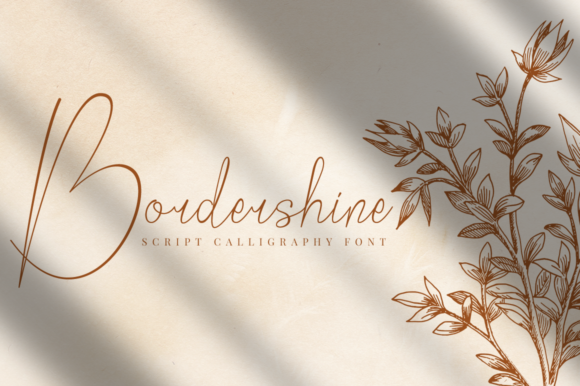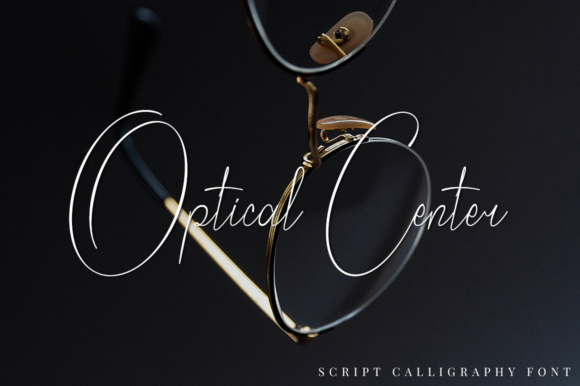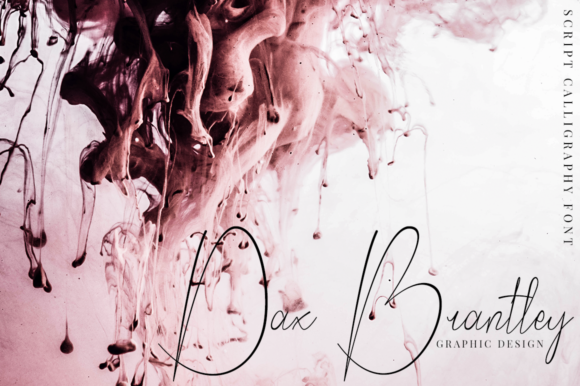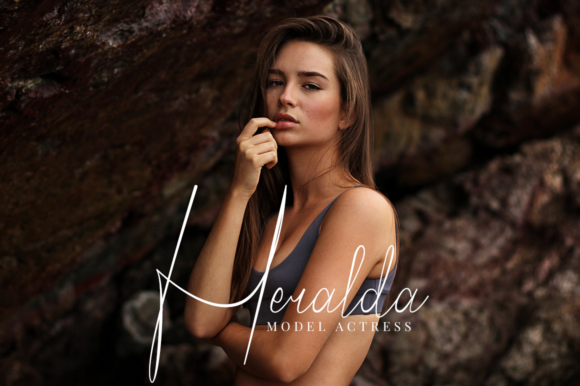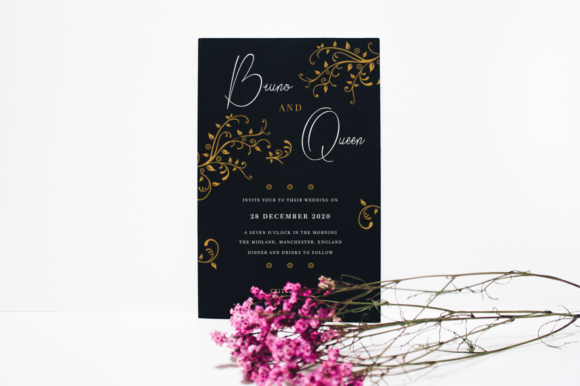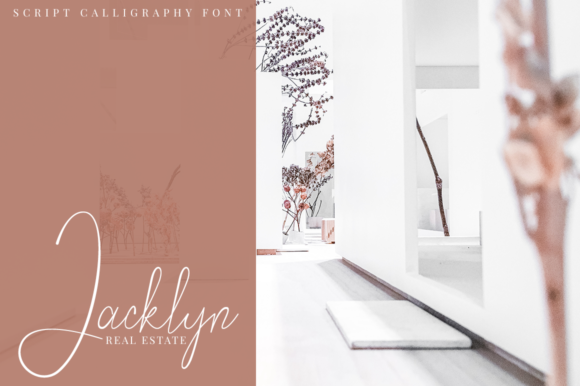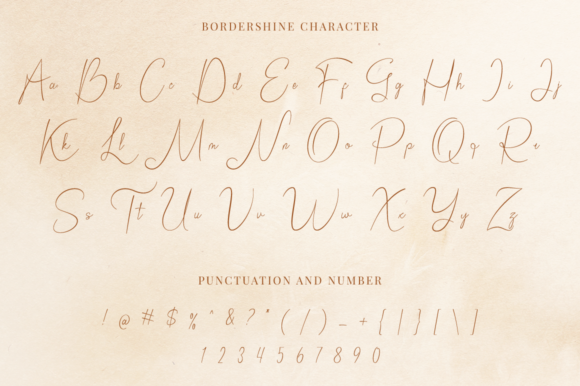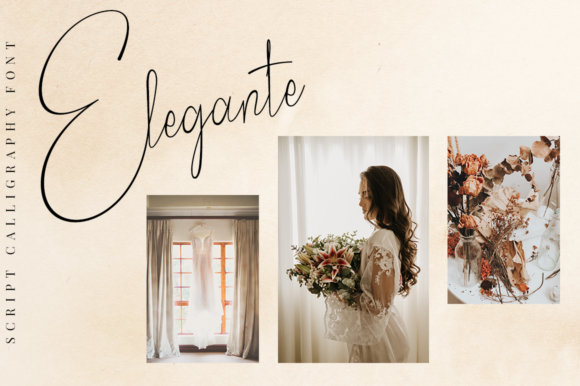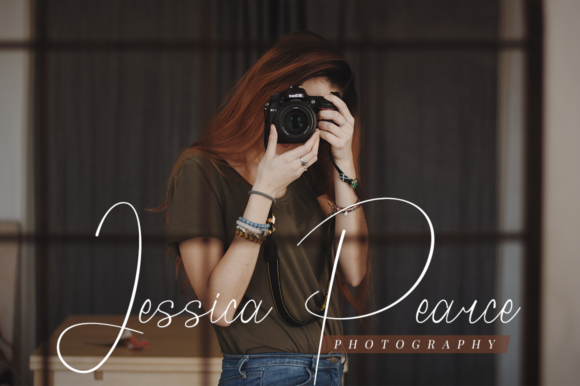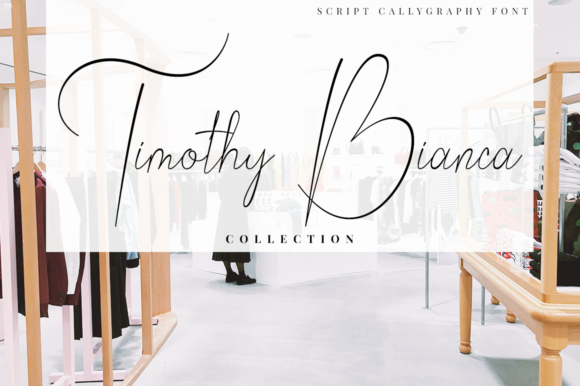
Bordershine Font
About Bordershine Font
Bordershine is a rich and playful handwritten font with a unique, calligraphic style. Get inspired by its unique and wonderfully charming look!